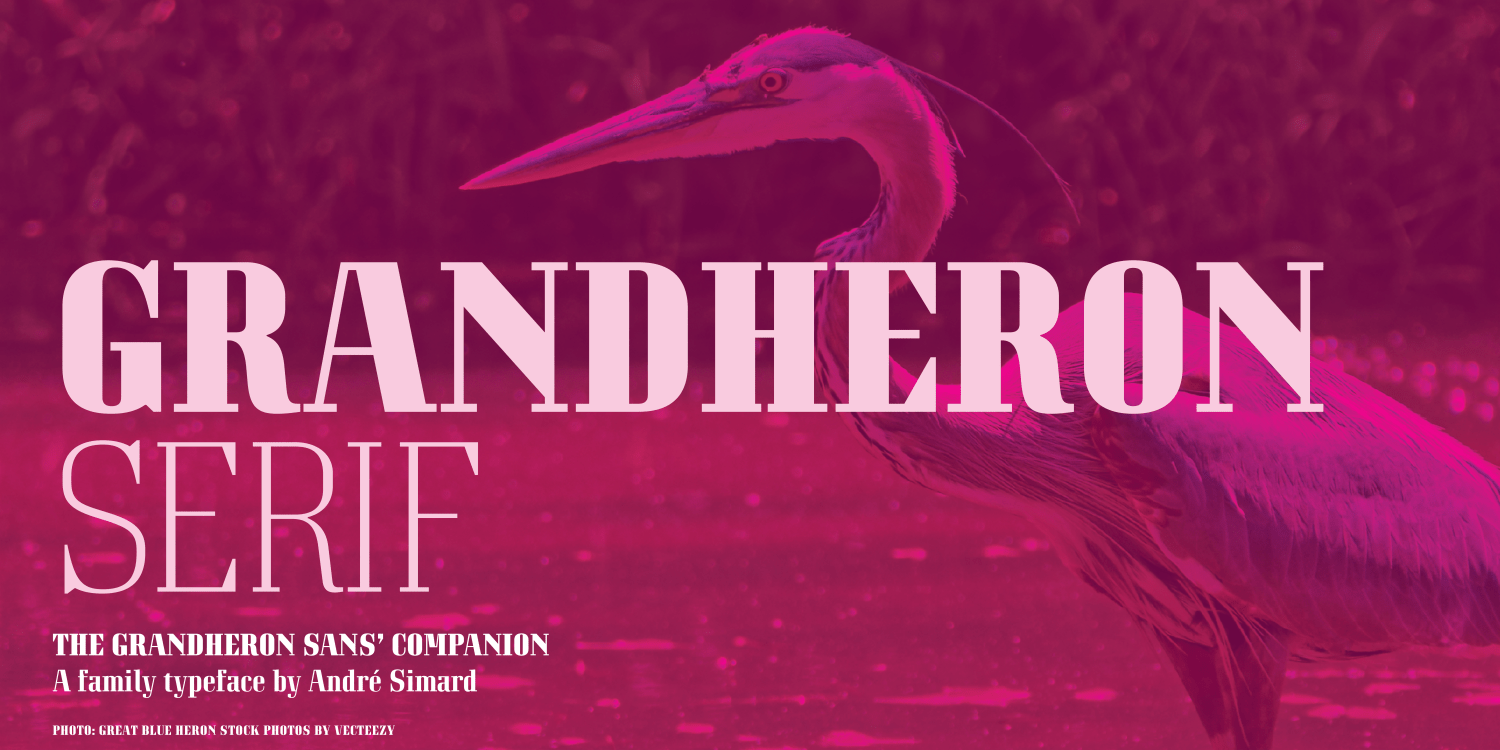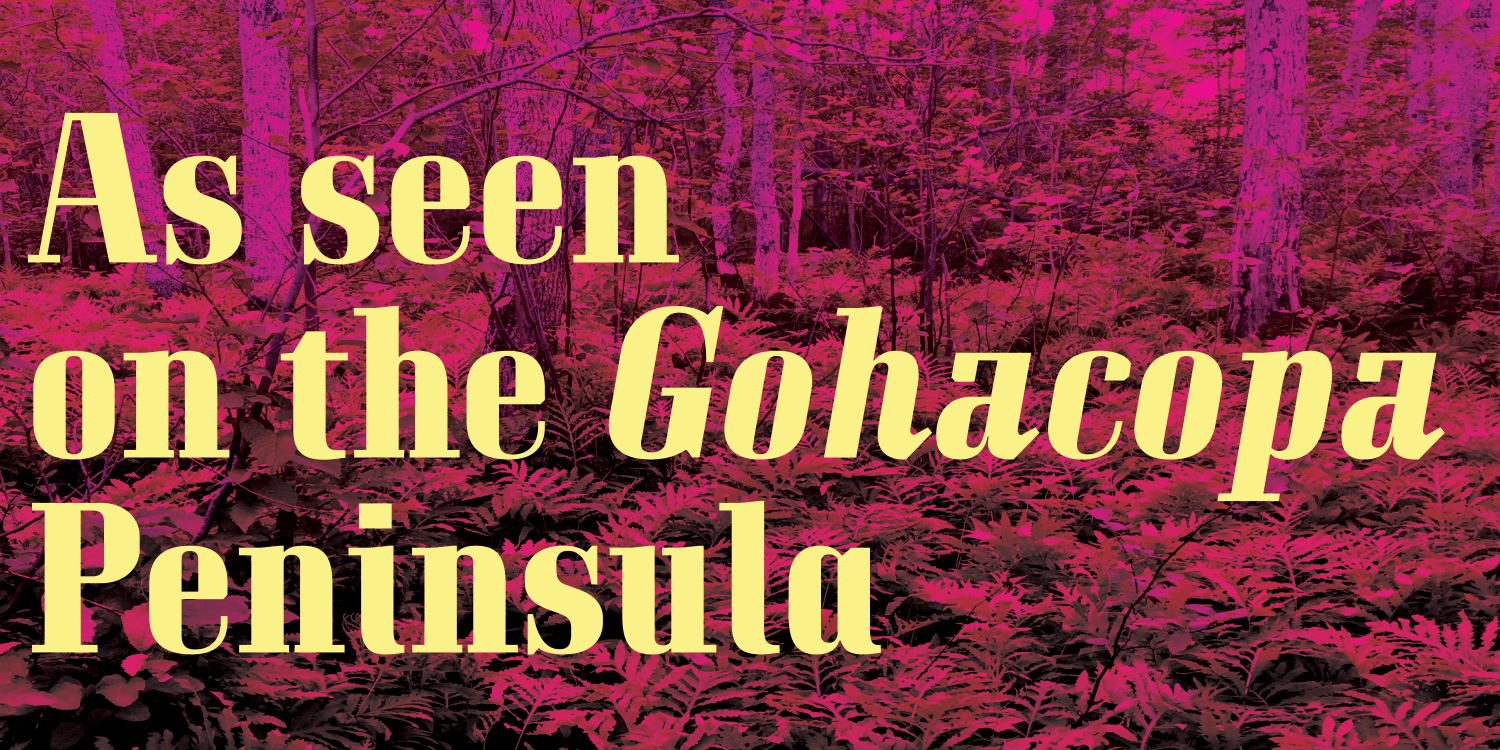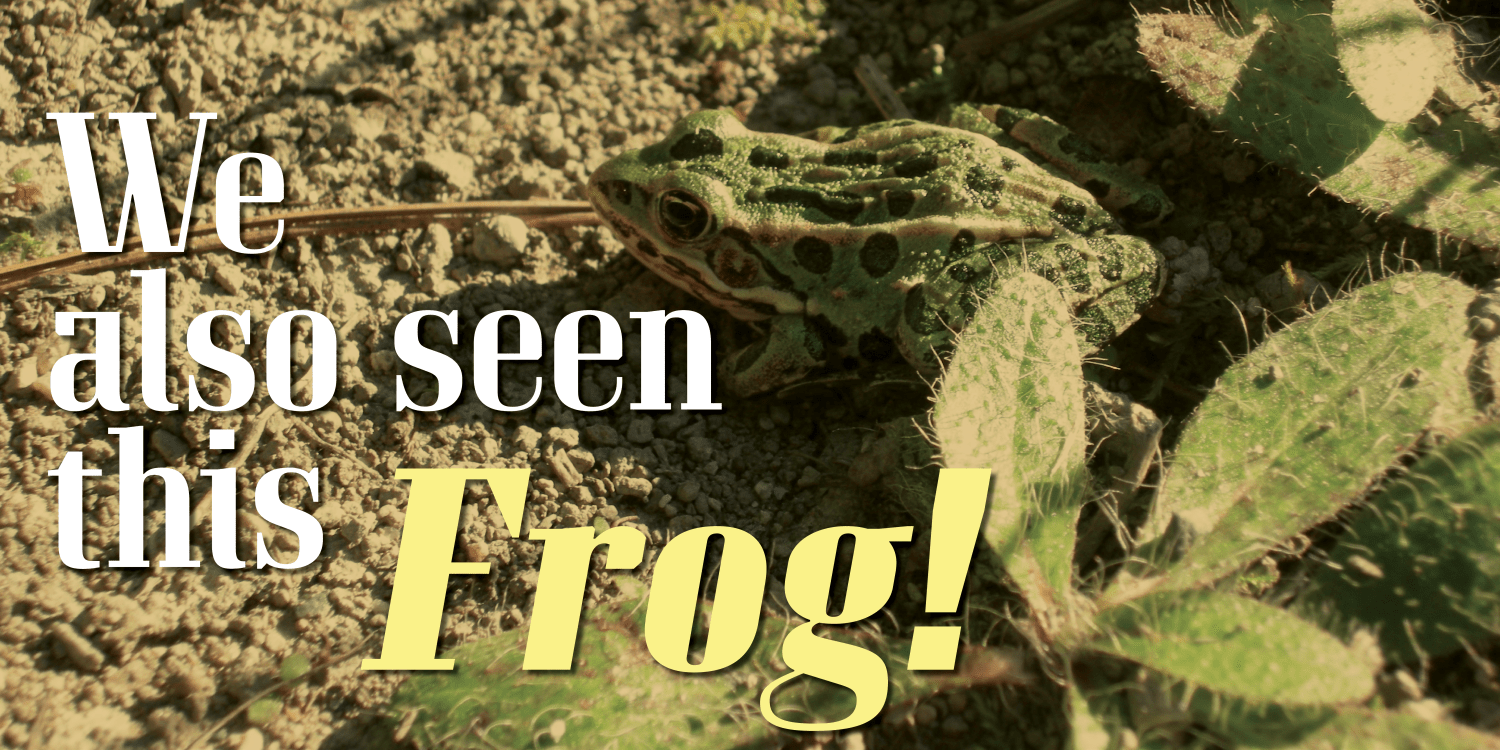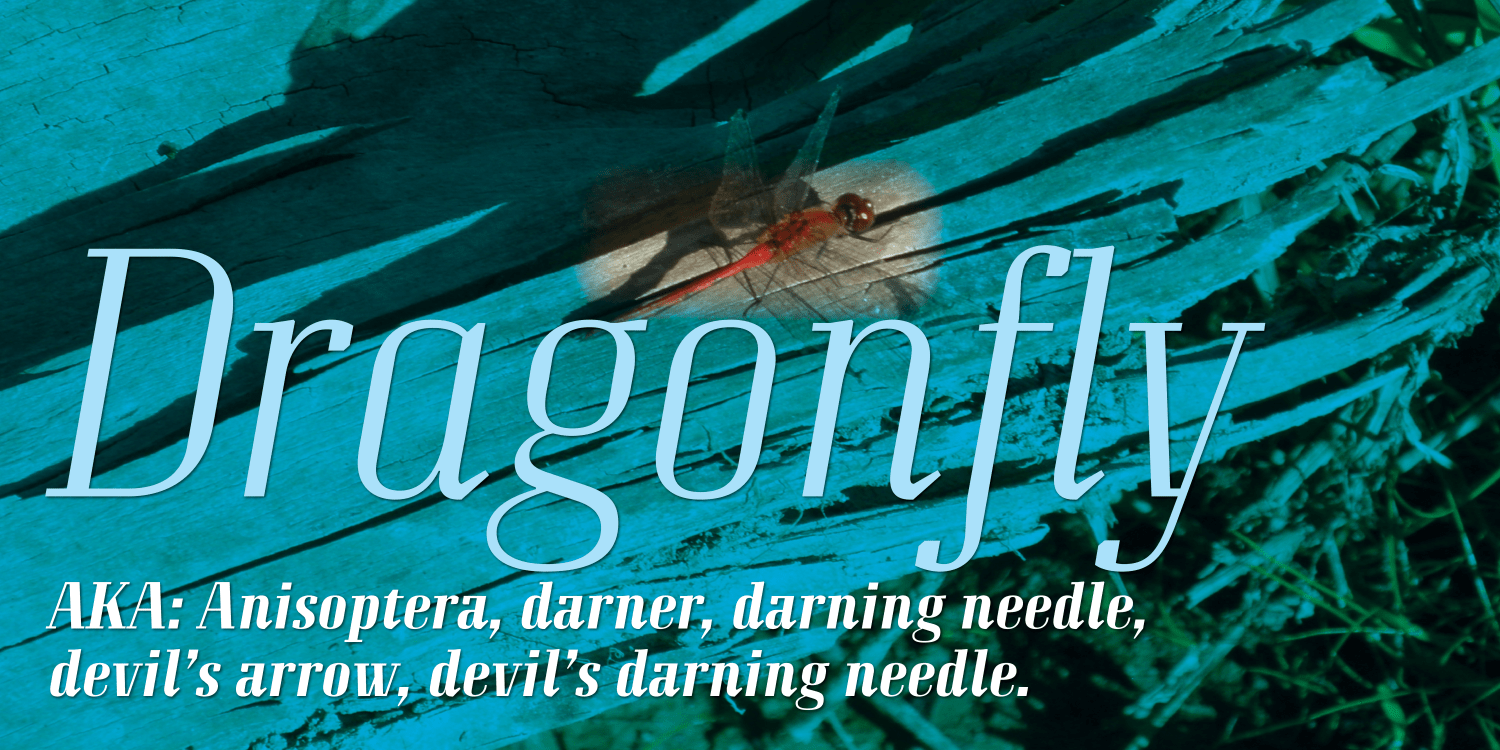
Grandheron Serif New
Font Family by André Simard
Buy NowThis is the much-anticipated serif version of Grandheron Sans New. Grandheron Serif New is an entirely new design, crafted as a thoughtful companion to the Sans styles. It expands the typographic possibilities of the Grandheron family, offering a cohesive and flexible toolkit for designs projects on any scale.